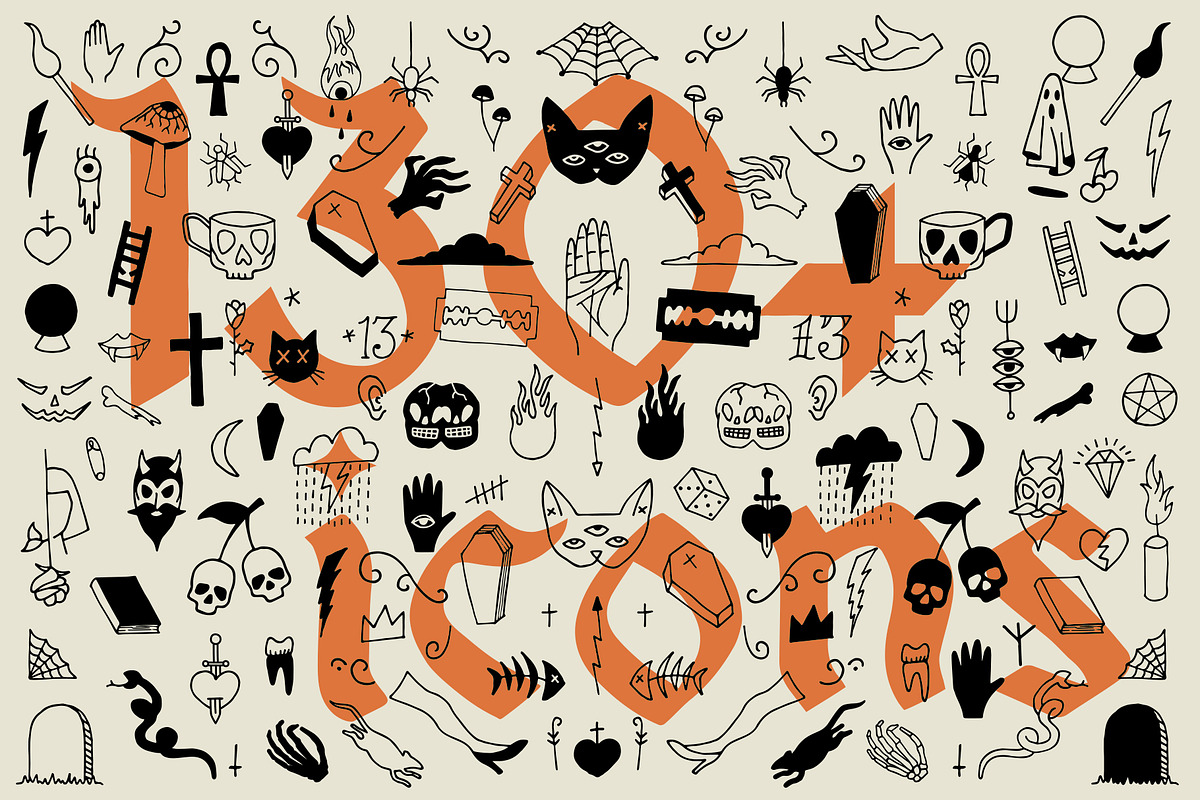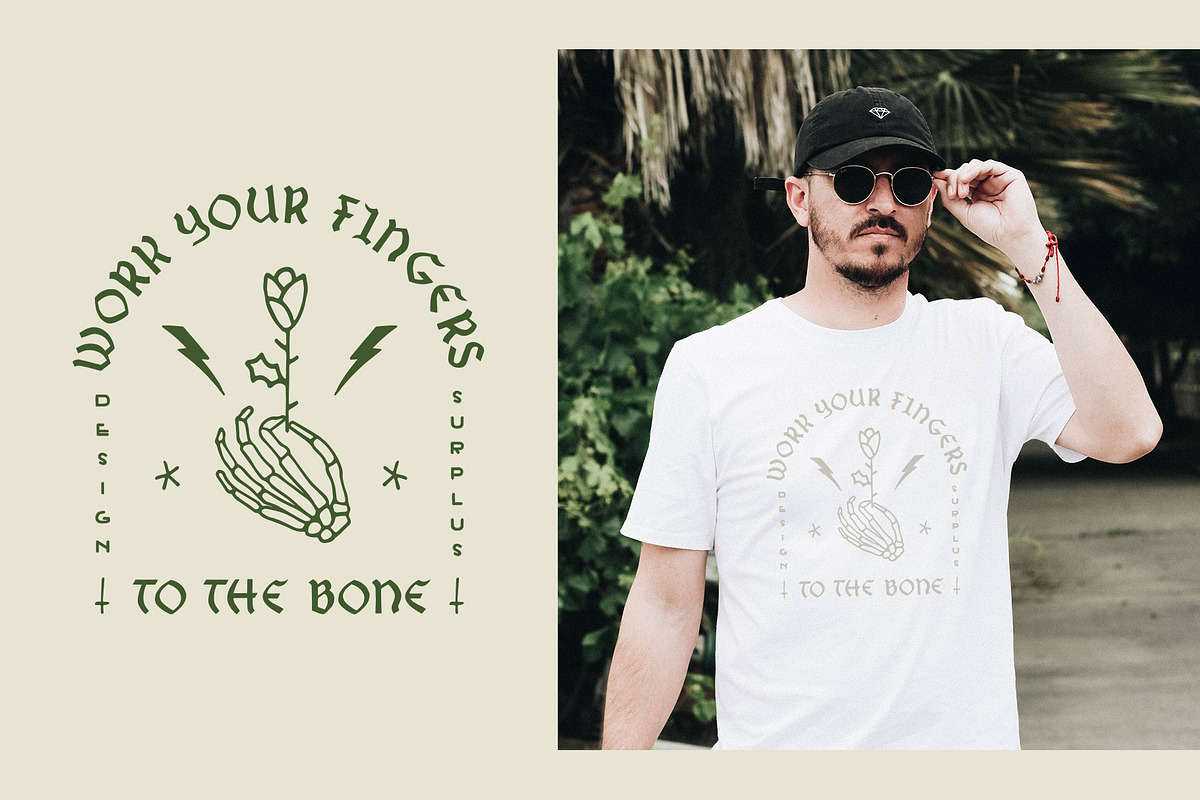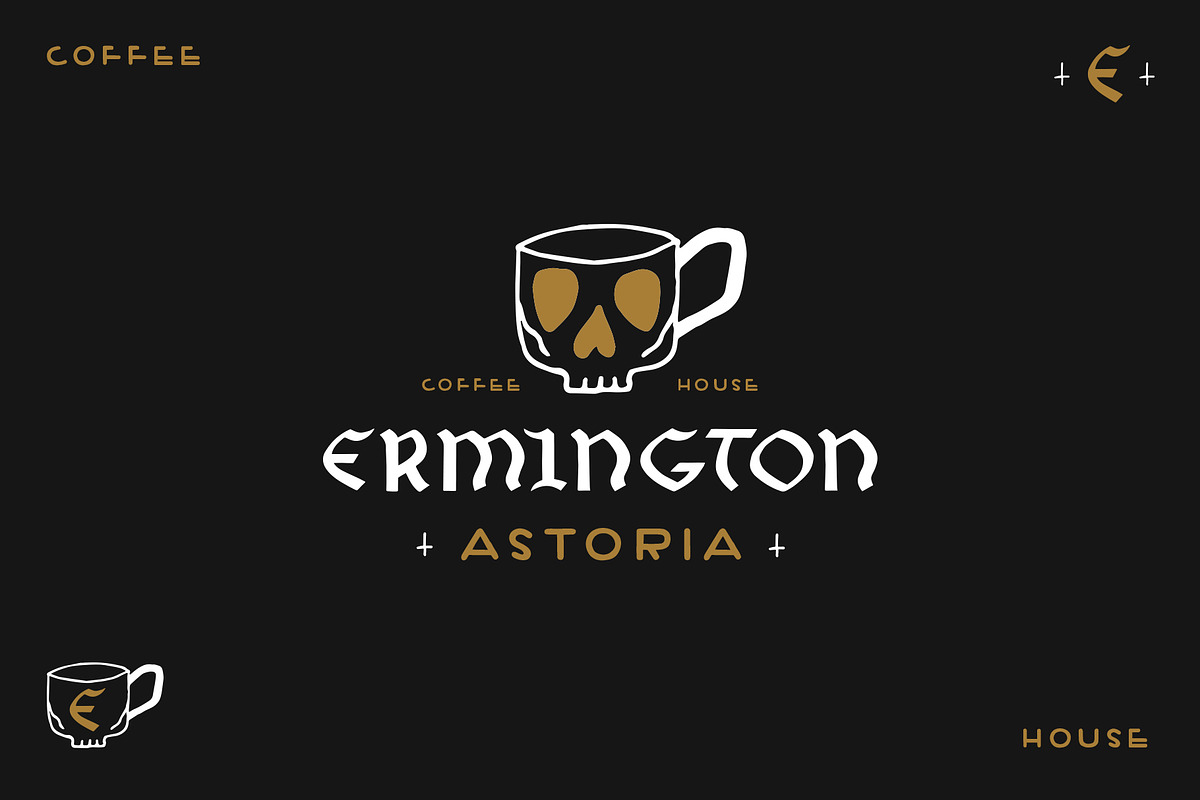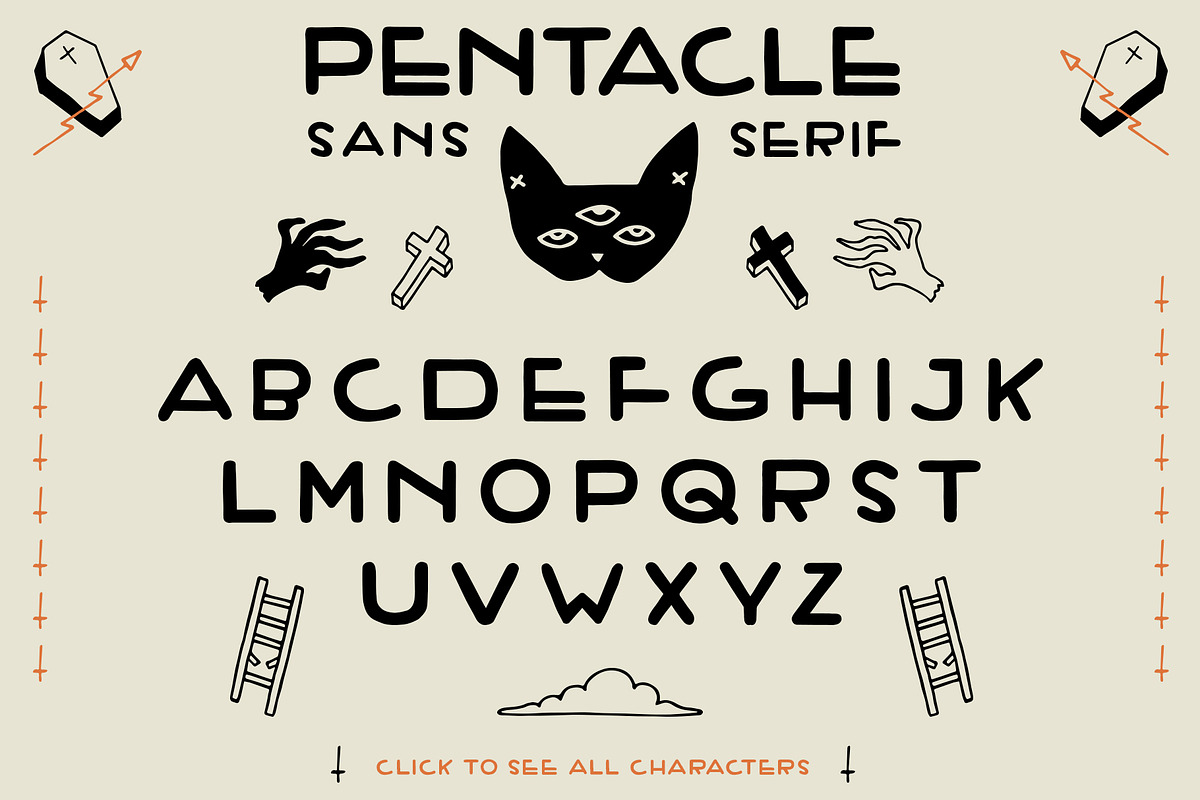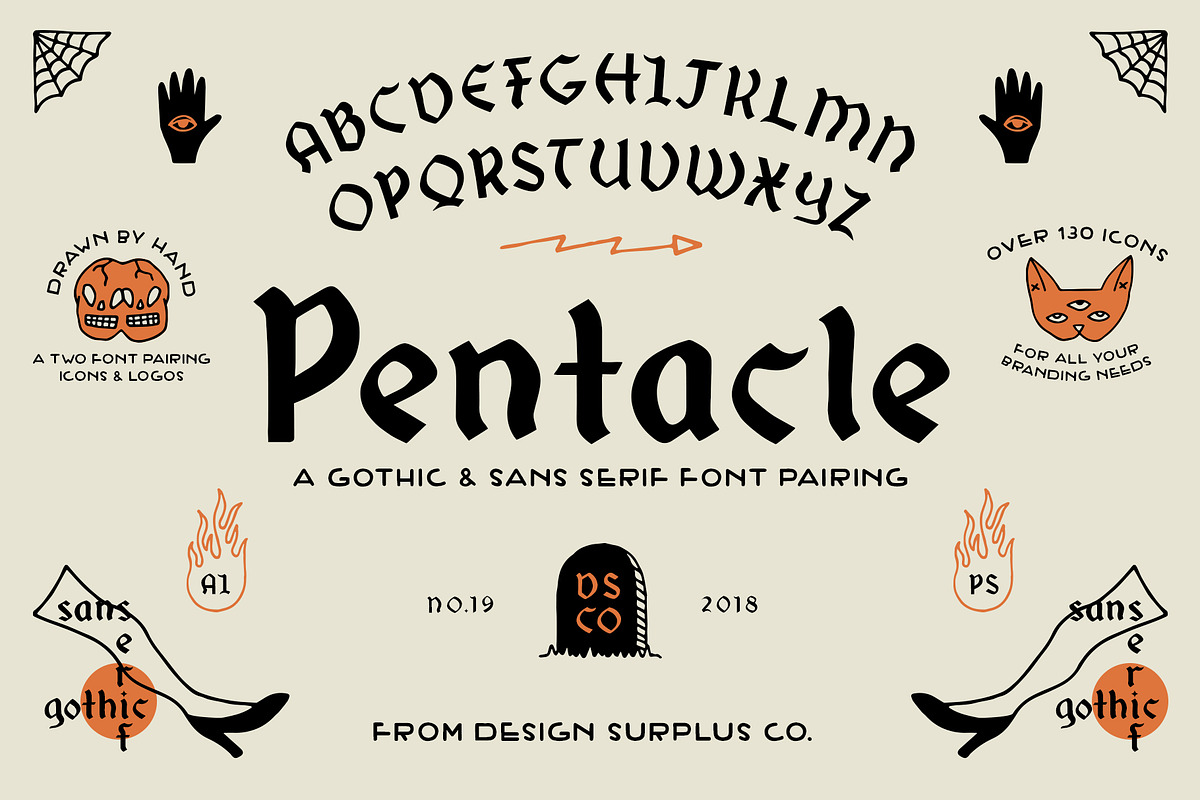
Pentacle Font
Pentacle is a brand new font pairing from Design Surplus with over 130 eerie, apothecary inspired icons. Gothic and sans serif, the Pentacle fonts work perfectly together and can also stand alone.
- Pentacle Gothic
- Pentacle Sans Serif
Why Pentacle Font is worth a look
Pentacle Font by Design Surplus fits naturally into Branding, posters, packaging, typography.